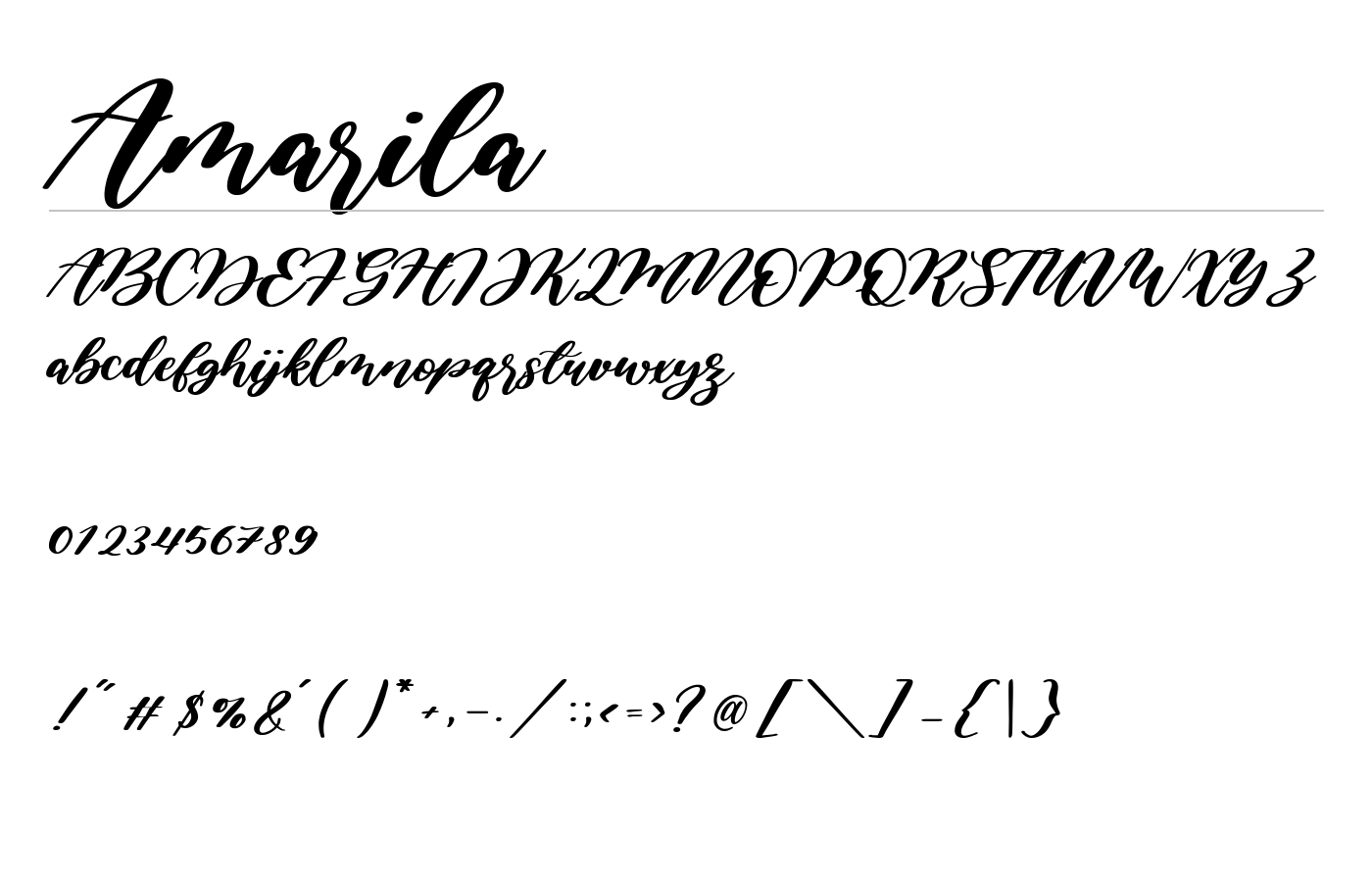
Amarila is an elegant script font with a flowing, calligraphic style that combines smooth curves and moderate contrast in stroke weight. Its graceful letterforms, including distinctive uppercase swashes and fluid lowercase shapes, give it a sophisticated and personal feel, making it perfect for fashion branding, invitations, and stylish headlines. This font shines in designs that seek an upscale yet approachable look with a touch of handwritten charm.
Amarila Font
About Amarila Font